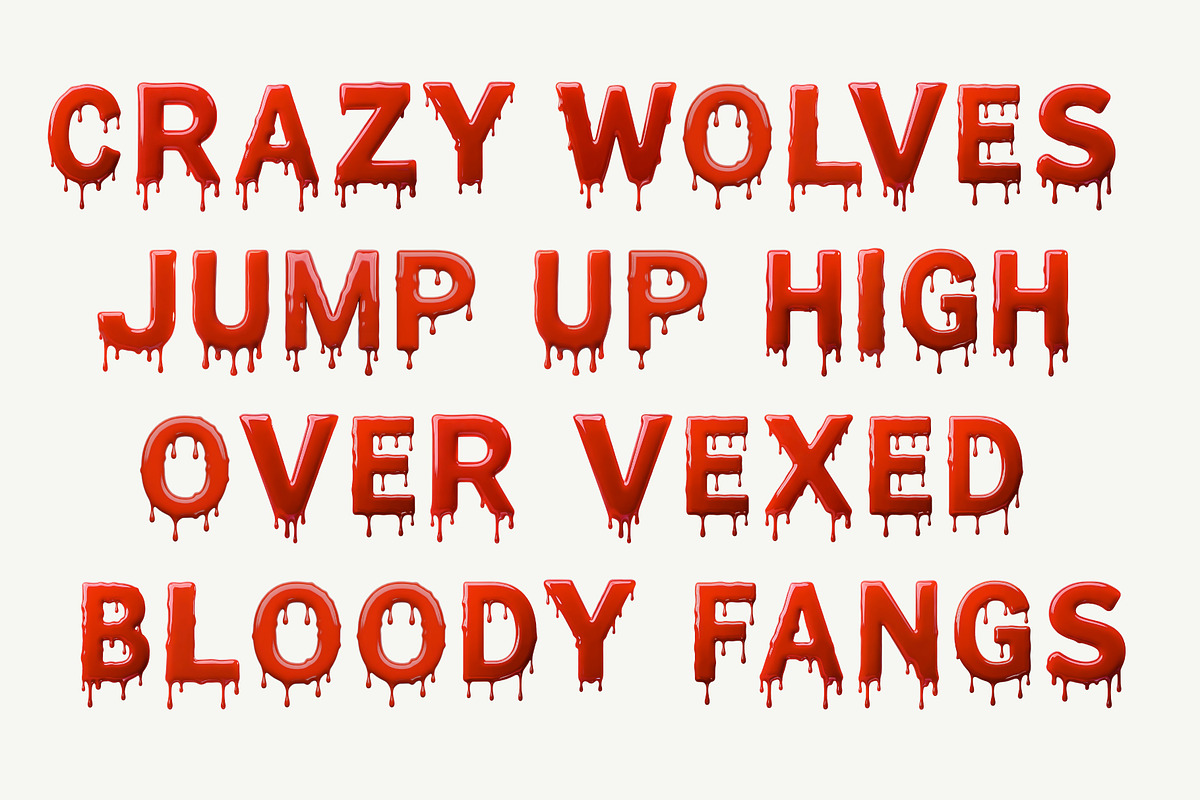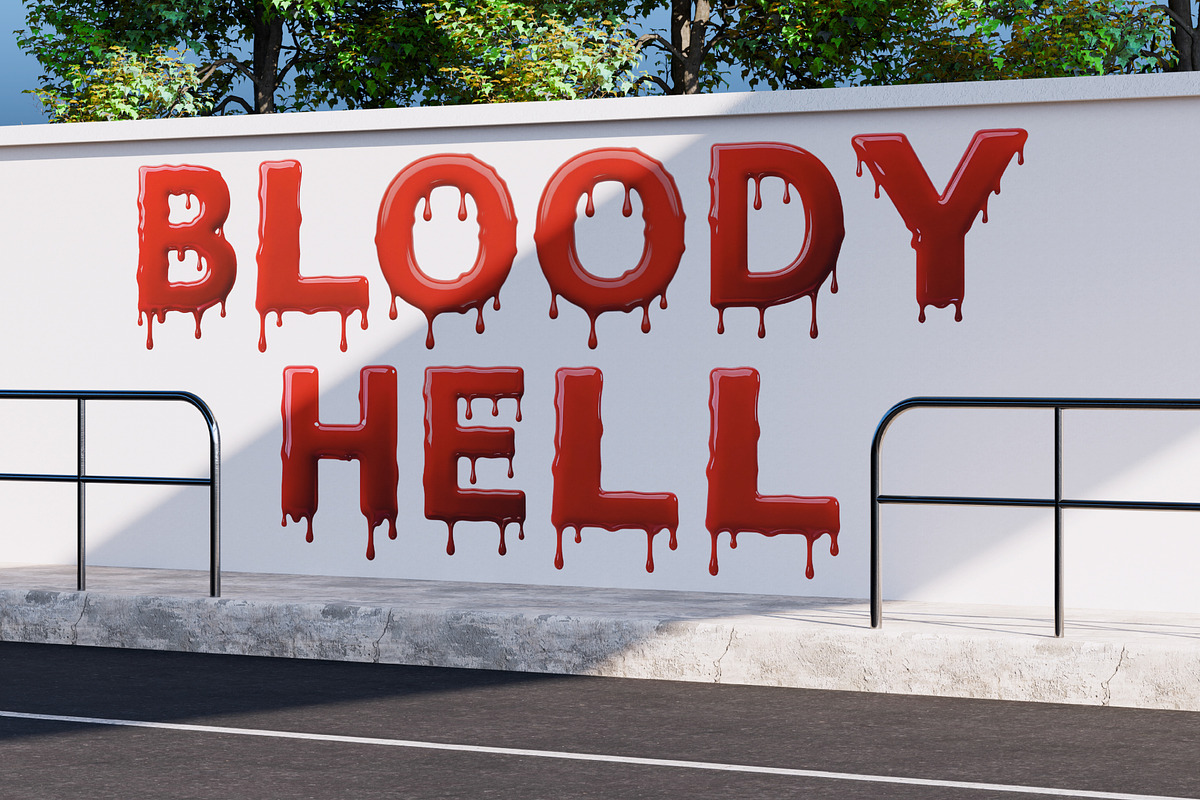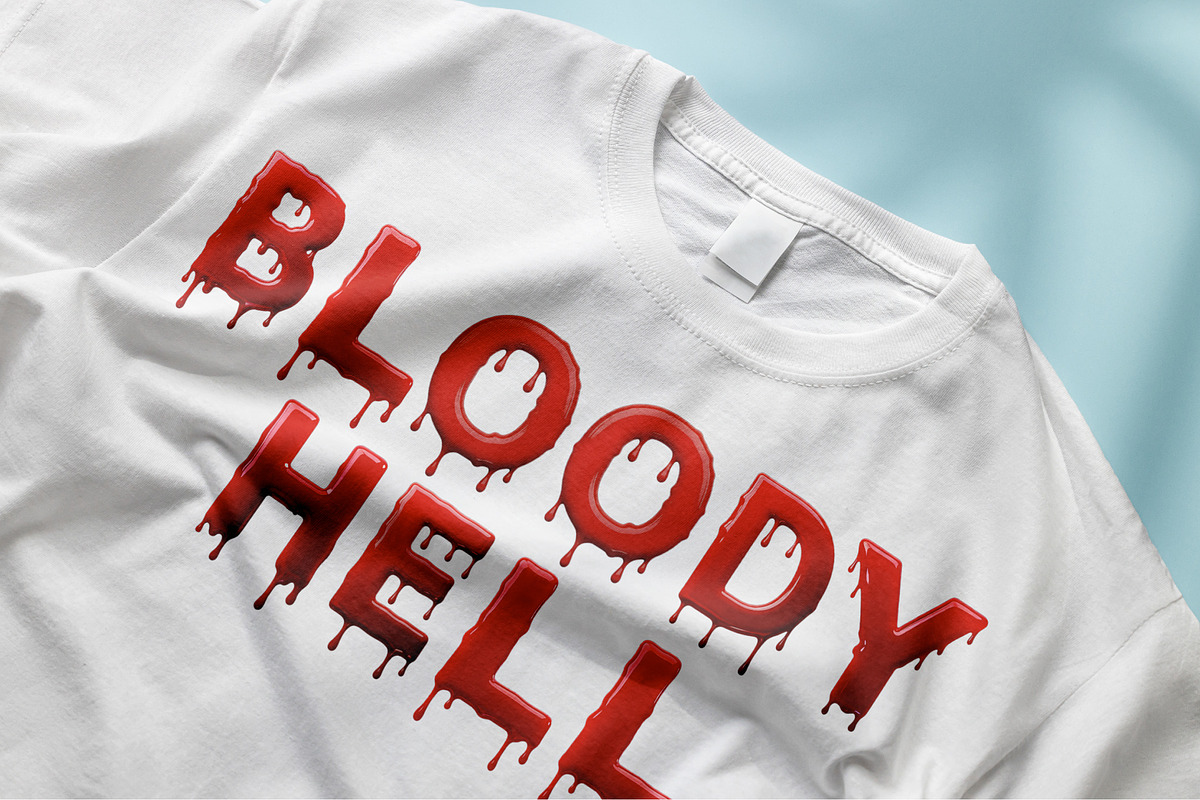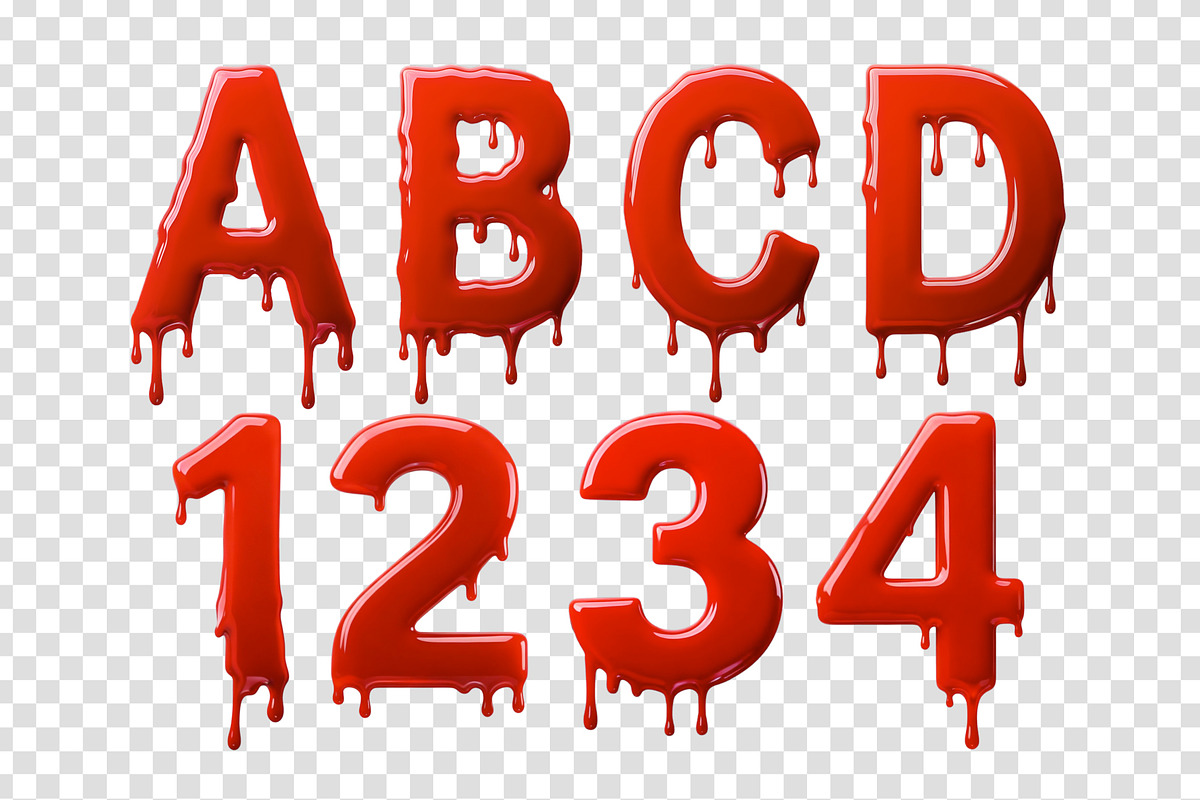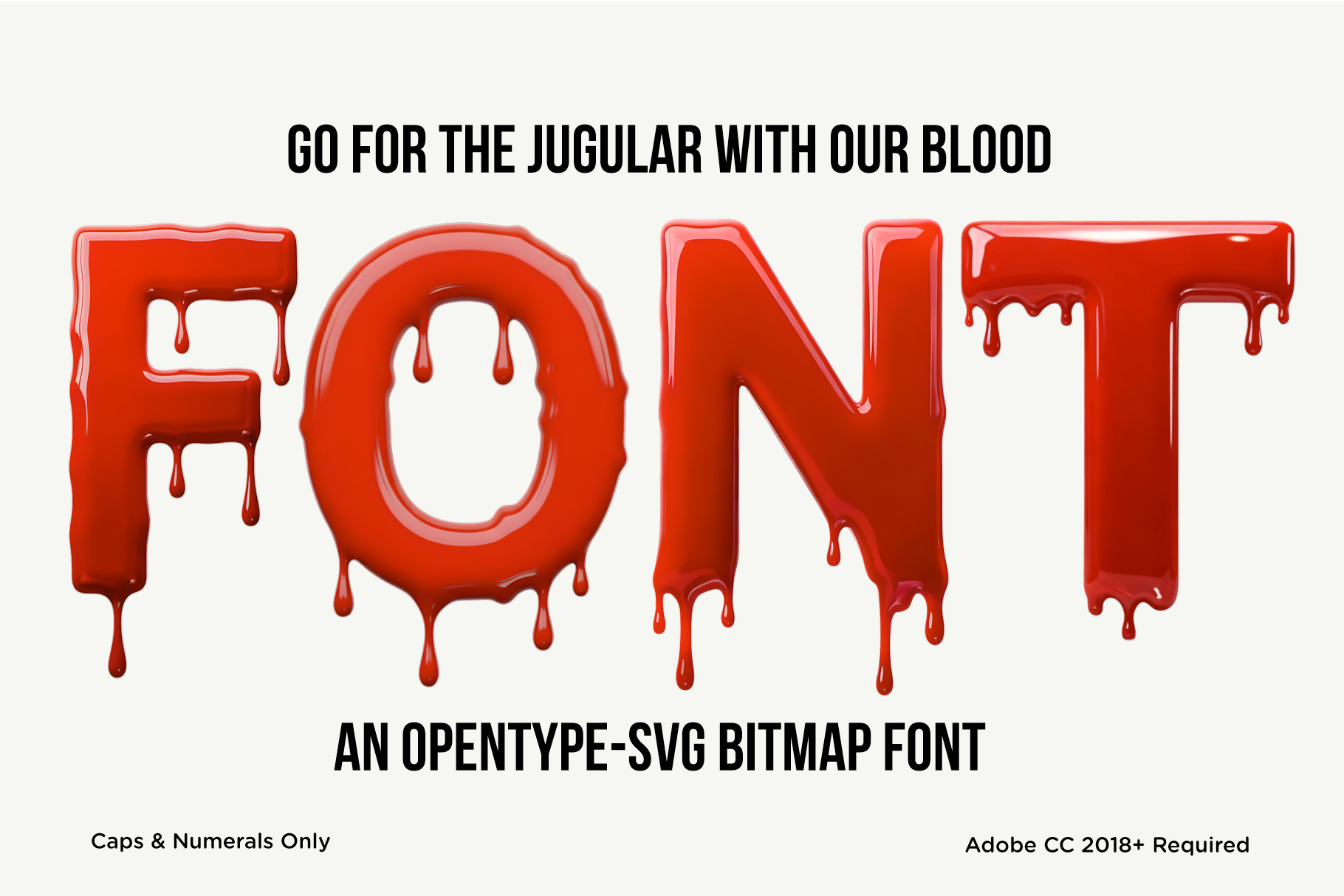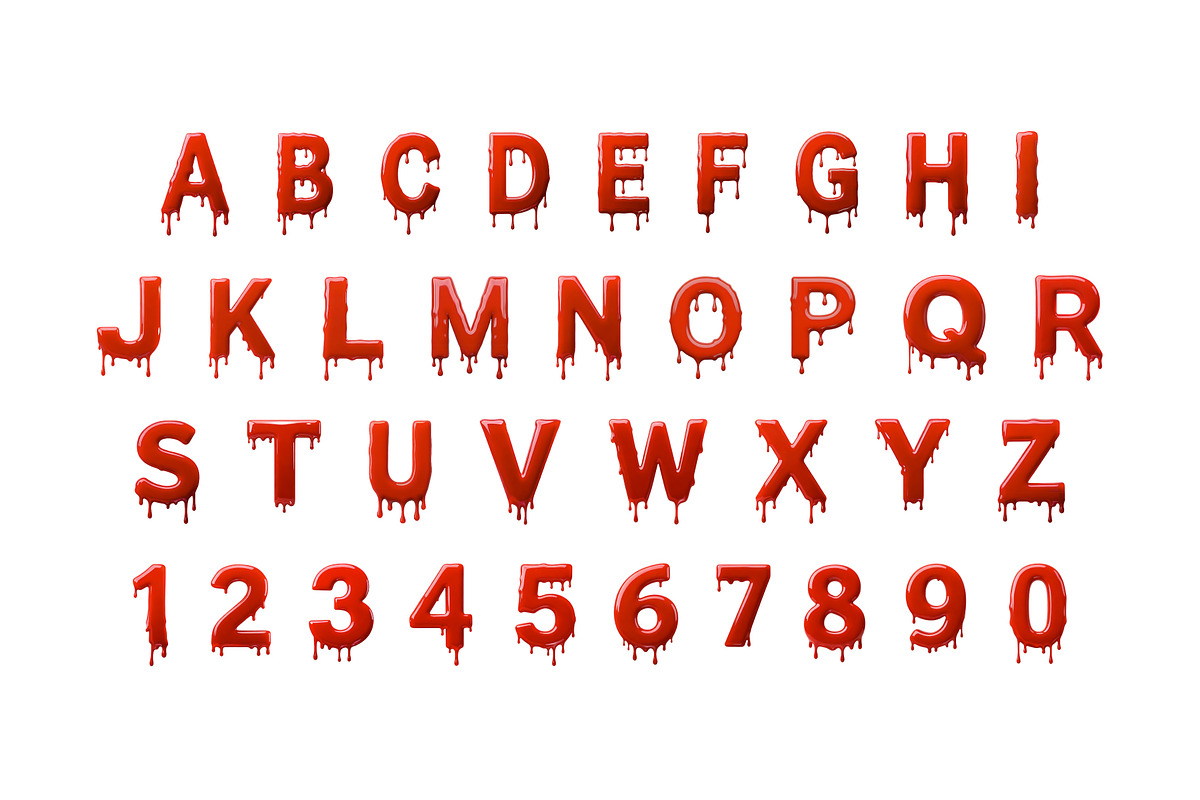
Blood 3D Font
BLOOD is a bold 3D display font that bleeds with style. Each letter drips with realistic, high-definition texture and subtle dimensional depth, bringing a dark, liquid energy to your designs. Balancing organic realism with clean structure, it’s perfect for posters, logos, headlines, packaging, and bold branding projects that need a raw, dramatic edge.
This OpenType-SVG bitmap font includes uppercase letters and numerals only. Each glyph features a high-resolution blood texture baked directly into the font file for a tactile, photorealistic effect—ideal for large display use such as titles, signage, or apparel design.